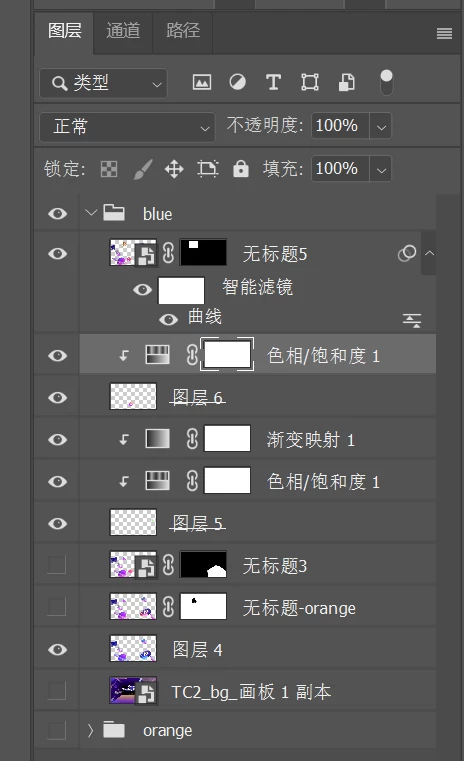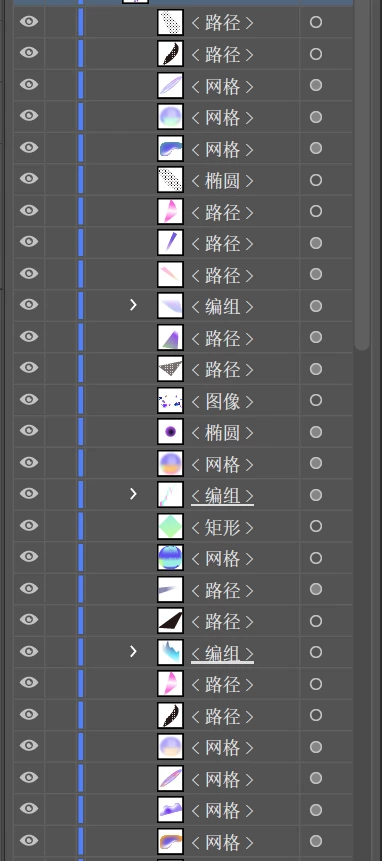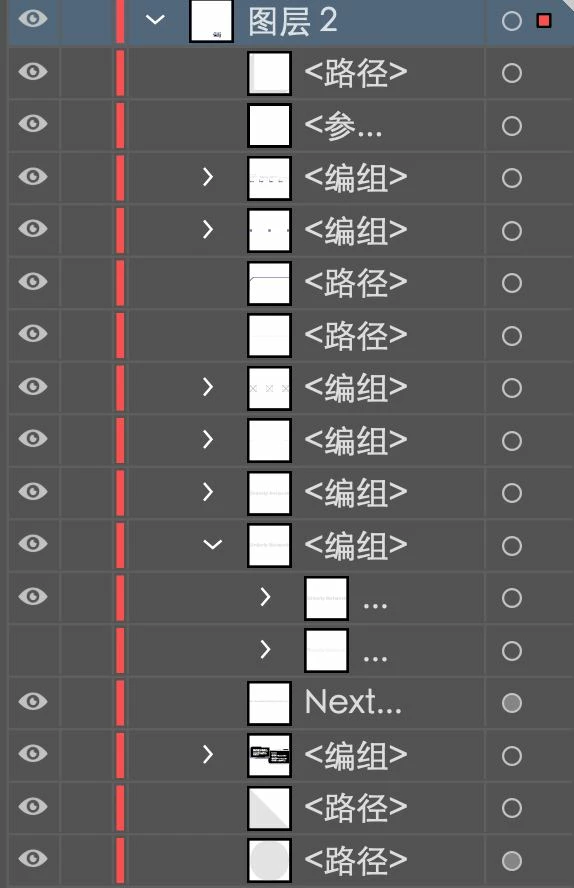
Ugly Interface font in Chinese on Windows system | Windows系统的Adobe中文界面字体太丑了
Dear Adobe Team,
I have always been an Apple user, until I recently switched to Windows to use Adobe software I found this problem - the Chinese interface font is really ugly. The default font of Windows 11 should be Microsoft YaHei UI, but the simplified Chinese interface of any adobe software is SimSun. This font has greatly affected the user experience. The screenshots of the interface on different system are attatched below, it's obvious that the font on Mac OS is much better than WIN 11. I hope the team can replace these fonts as soon as possible.
我一直是一名苹果用户,直到我近日切换到Windows使用ADOBE软件我才发现这个问题——中文界面字体实在是丑了。Windows 11的默认字体应该是微软雅黑,但是任何adobe软件的简体中文界面都是宋体。这个字体极大的影响了用户体验,下面附上不同系统的界面截图,希望团队可以尽快替换这些字体。
Photoshop Beta on WIN 11
Illustrator Beta on WIN 11
Illustrator Beta on Mac OS